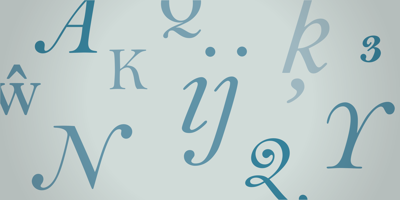
Rigot Font is perfect for a wide range of design applications including corporate branding, professional documentation, annual reports, business presentations, financial services branding, law firm communications, architectural firms, consulting company materials, executive letterheads, and formal marketing campaigns. This sophisticated typeface excels in projects that require authoritative presence while maintaining exceptional readability across both print and digital platforms.
What makes Rigot Font truly exciting is its masterful balance between structural authority and contemporary refinement that commands respect while remaining highly accessible. The font features precisely crafted letterforms with clean lines and consistent proportions that create a sense of reliability and professional competence. Its systematic approach to typography makes it an exceptional choice for designers who need to communicate credibility, expertise, and trustworthiness while maintaining visual appeal. The font's distinctive character helps create memorable brand experiences that resonate with professional audiences seeking authentic, dependable communication.
The Rigot Font family typically includes comprehensive weight variations ranging from light to black, along with corresponding italic styles that complement the roman versions. The family often features thin, light, regular, medium, semibold, bold, and black variations, each maintaining consistent design principles while offering different levels of visual hierarchy. Many versions include extended character sets with multilingual support, advanced OpenType features, and carefully optimized spacing for professional typographic applications.
When searching for a typeface that embodies professional excellence and contemporary sophistication, Rigot Font Free Download offers designers access to premium typography that meets the demanding requirements of corporate and institutional communications. This font has gained popularity among business consultants, financial institutions, and design professionals who appreciate its ability to convey authority and reliability in their professional visual identity work.
The font's robust construction makes it particularly effective for brands in finance, legal services, consulting, architecture, and professional services sectors where trust and credibility are paramount. Its excellent legibility at various sizes ensures optimal performance across different media, from detailed contracts to large-scale conference presentations. The comprehensive character set includes extensive punctuation, numerals, and professional symbols that support complex business documentation requirements.
Rigot Font demonstrates exceptional attention to typographic detail, with consistent spacing, balanced proportions, and refined letterforms that create cohesive professional communication. Whether you're developing corporate identity systems, designing annual reports, or creating executive presentations, this font provides the authority and reliability that successful business communications require.
The font's timeless professional appeal ensures longevity in corporate applications while its contemporary character helps organizations establish strong credibility in competitive business environments.